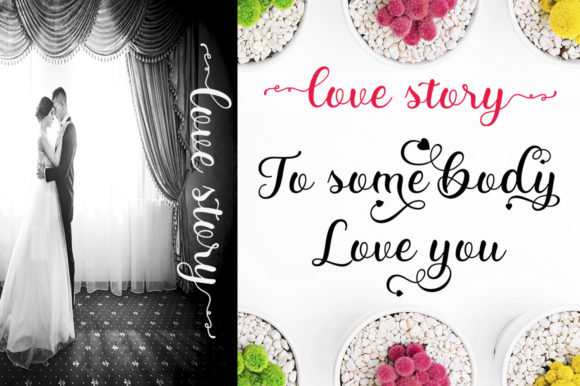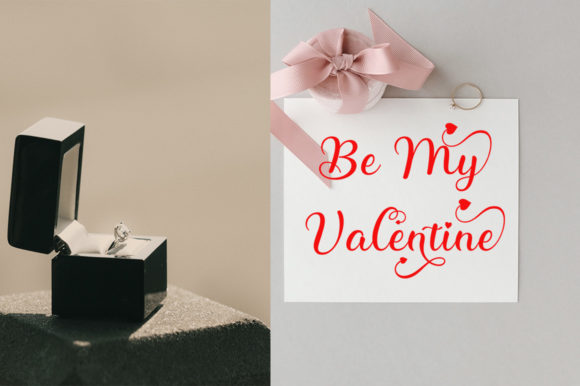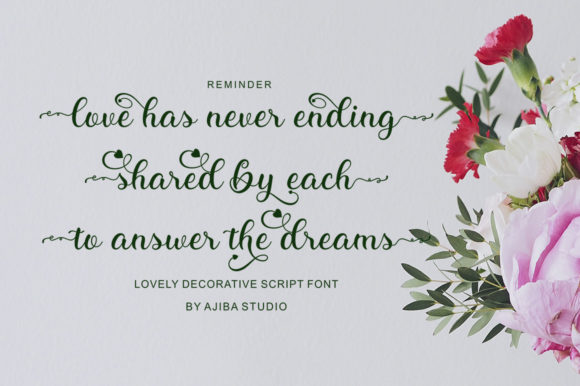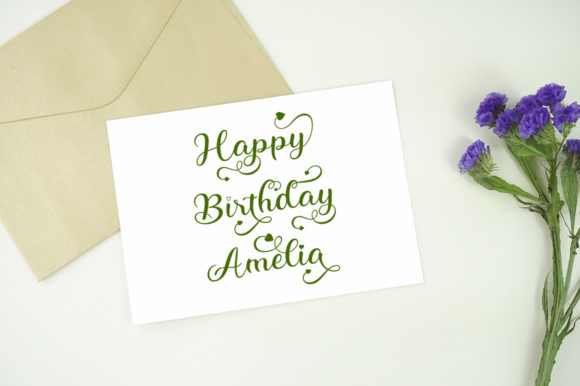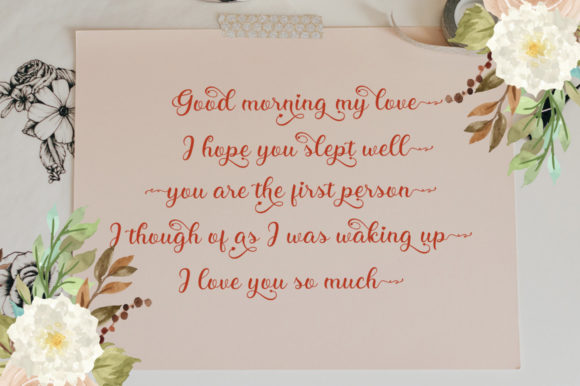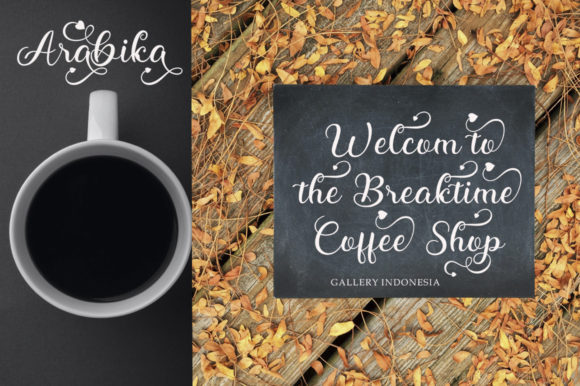
Discover the Magic of Handwritten Charm with Camellina Script Font
There’s something special about sitting down with a pen and paper, letting your imagination flow, and watching your thoughts transform into beautiful, handwritten words. For many creatives, this is a moment of pure joy – the freedom to express themselves without the constraints of technology. And that’s exactly what the Camellina Script Font is all about: capturing the essence of handwritten charm in a digital format.
Camellina Script Font is a stunning script font designed to add a touch of elegance and sophistication to your designs. With its clean and beautiful lines, lovely swashes, and irregular baselines, this font is an incredibly valuable asset to any designer’s library. Plus, its PUA encoding makes it easy to access all the glyphs and swashes, giving you complete control over your creative vision.
Key Features of Camellia Script Font
- Font Style: Script Font, ideal for titles, headings, and creative text arrangements.
- Unique Characteristics: Features elegant, flowing lines, and subtle flair at the ends of strokes, giving it a sophisticated and luxurious feel.
Camellina Script Font Review
Overall, I think the Camellina Script font has a lot going for it. ✨ The elegant, cursive design makes it perfect for adding a touch of sophistication to any project. ✨ The font’s fluid connections and swashes give it a beautiful, handwritten feel that’s sure to capture the user’s attention. ✨ I’ve also noticed that the font is highly versatile, suitable for both print and digital applications.
- ✨ Elegant, cursive design
- ✨ Fluid connections and swashes
- ✨ Highly versatile
- ✨ Suitable for both print and digital applications
While I think the Camellina Script font is a great addition to any designer’s toolkit, there are a few limitations to be aware of. ⚠️ The font may not be suitable for projects that require a bold, eye-catching font. ⚠️ Additionally, the font’s connections and swashes can sometimes make it difficult to read in smaller sizes or at a distance.
- ⚠️ May not be suitable for bold, eye-catching projects
- ⚠️ Connections and swashes can be difficult to read in smaller sizes or at a distance
Overall, I think the Camellina Script font is a great choice for designers looking to add a touch of elegance to their projects. With its beautiful, handwritten design and high versatility, it’s a great addition to any toolkit. However, be aware of its limitations and use it judiciously to get the best results.
Camellina Script Font Practical Application Guide
For a more professional look, try pairing Camellina Script with a sans-serif font like Open Sans or Lato. Experiment with different font sizes and colors to create a visually appealing design.
For a more creative look, try using Camellina Script in combination with bold lines, watercolor effects, or other artistic techniques.
To use Camellina Script in PowerPoint or Word, select the font from the font library. You can then use it for headings, titles, or body text.
For a more polished look, try using Camellina Script in combination with a standard font like Calibri or Arial.
Camellina Script is perfect for:
- Wedding or event signage
- Personalized gifts and stationery
Alternatives to Camellina Script Font for Designers
Carolyna Pro is a luxurious and elegant script font that is perfect for creating high-end designs. It features a flowing, handwritten feel with beautiful connections between letters. Use Carolyna Pro for wedding invitations, luxury branding, and high-end fashion designs.
Compared to Camellina Script Font, Carolyna Pro has a more refined and polished feel, making it ideal for premium designs. While Camellina Script Font has a more rustic, vintage feel, Carolyna Pro is more modern and sophisticated.
Great Vibes is a beautiful, cursive script font that is perfect for creating happy and energetic designs. It features a playful, handwritten feel with a touch of whimsy. Use Great Vibes for children’s designs, party invitations, and social media graphics.
Can I customize Camellina Script to fit my design needs?
Yes, Camellina Script can be customized to fit your design needs. You can use font editing software to modify the font’s characteristics, such as the letter spacing, word spacing, and line height. However, it’s essential to note that any modifications may affect the font’s overall appearance and legibility.